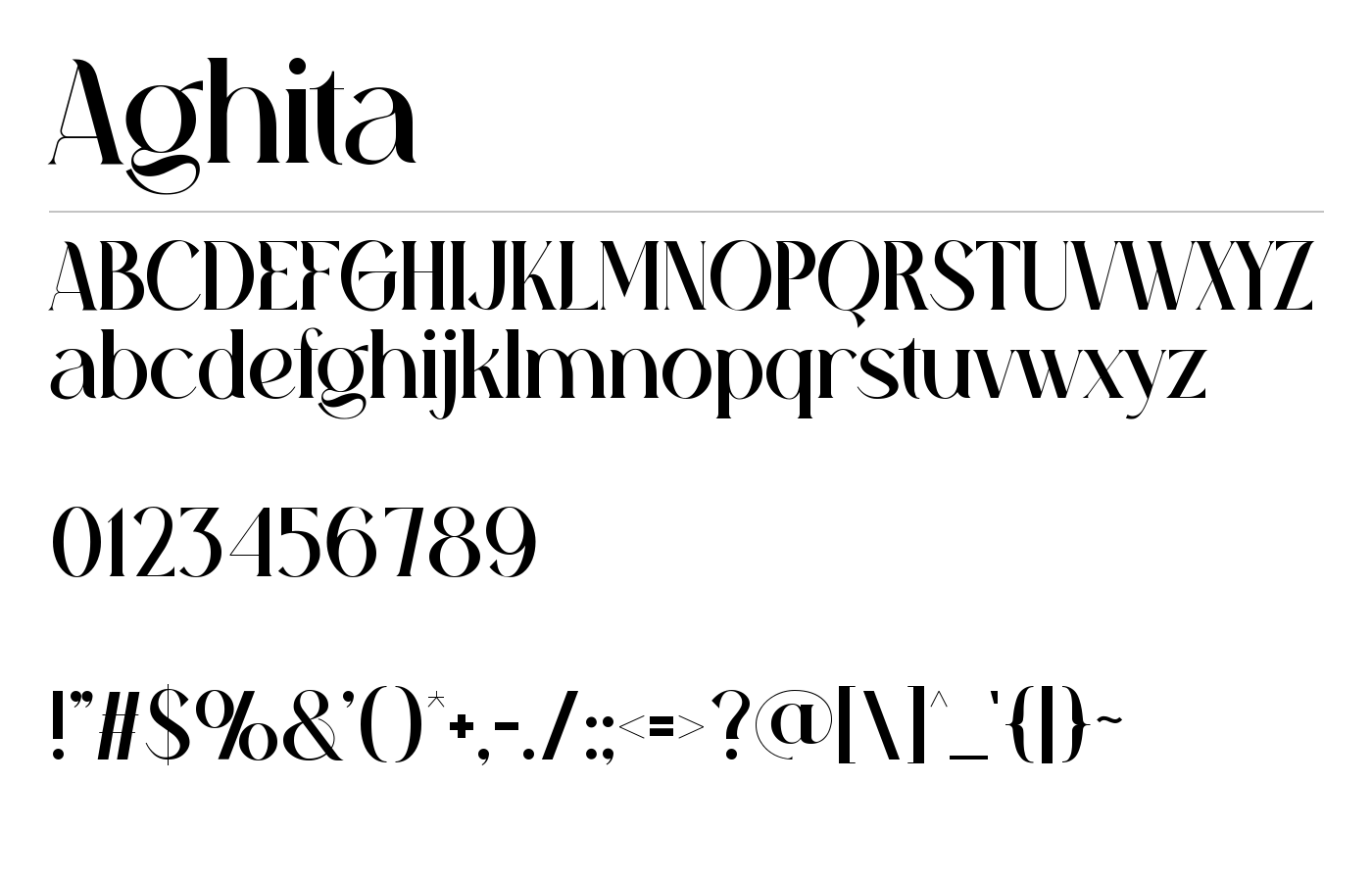
Aghita is an elegant serif font that combines high contrast strokes with refined, delicate details, creating a modern yet classic appearance. Its tall, graceful letterforms with distinctive curved terminals and sharp serifs make it perfect for luxury branding, editorial headlines, and sophisticated packaging. This font stands out for its stylish personality and strong visual appeal, ideal for designs that require a touch of elegance and refinement.
Aghita Font